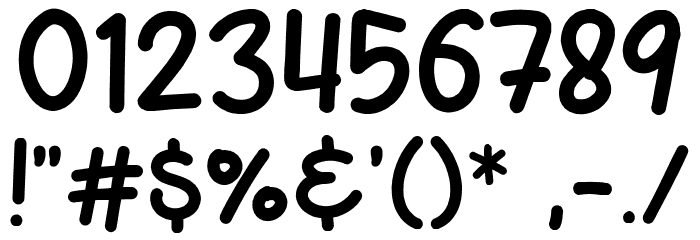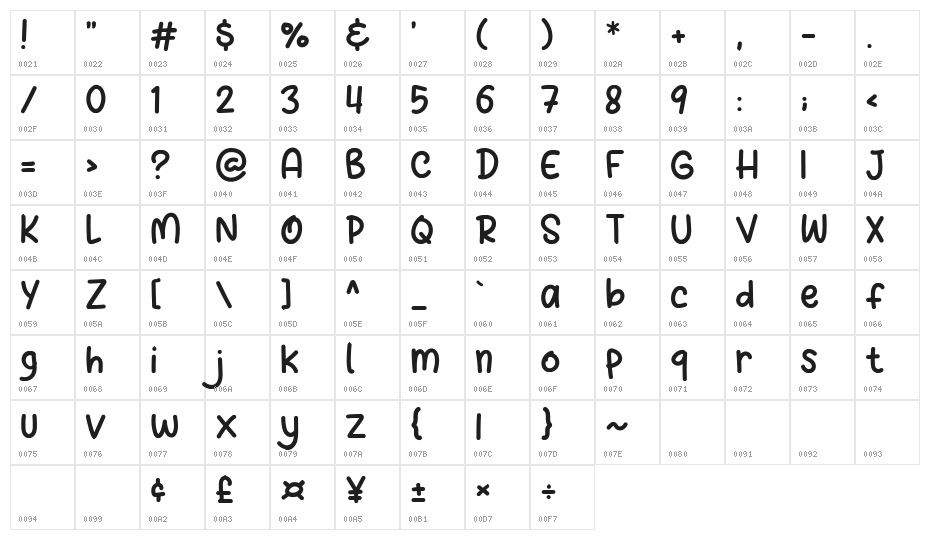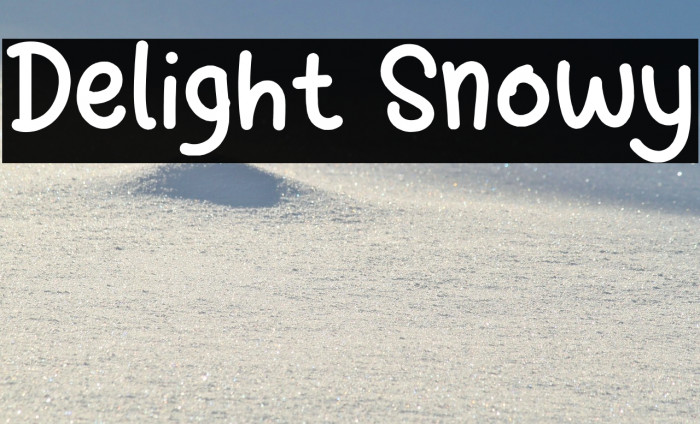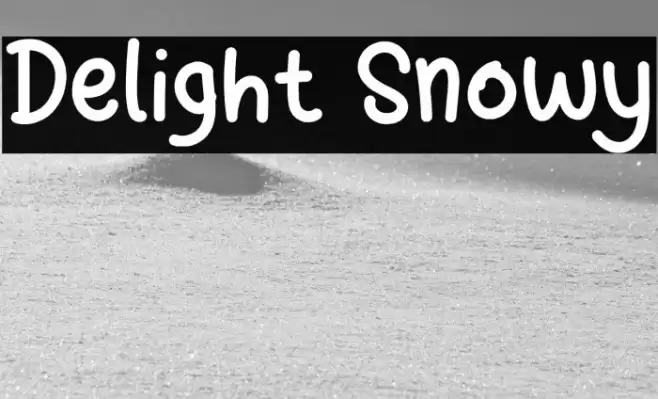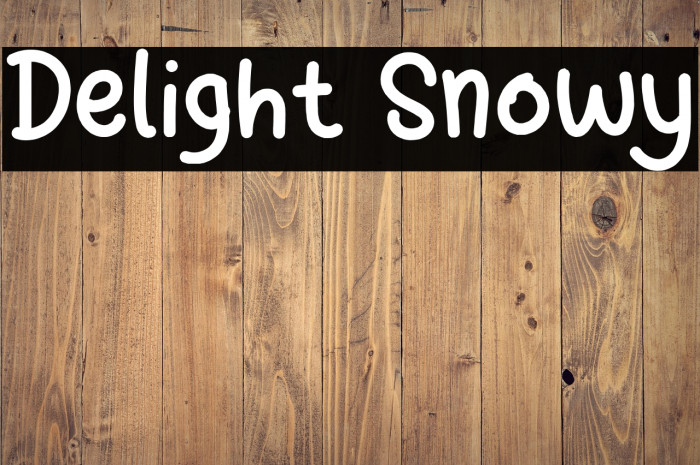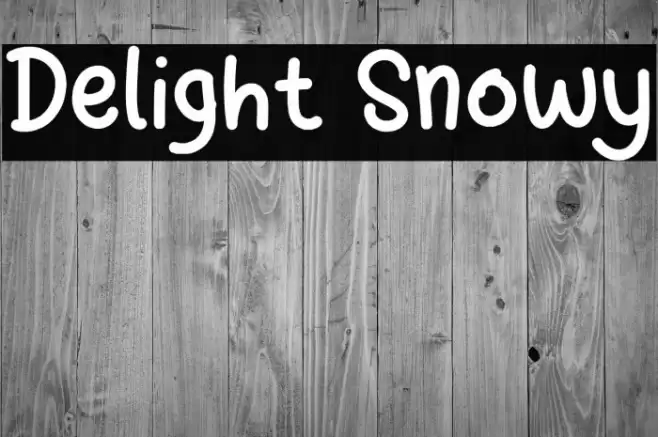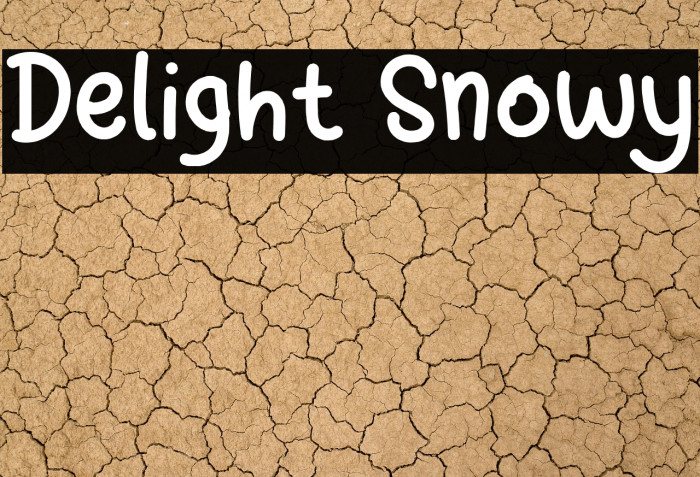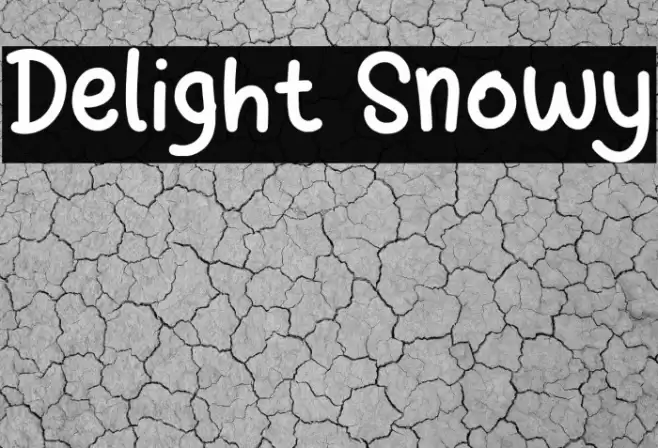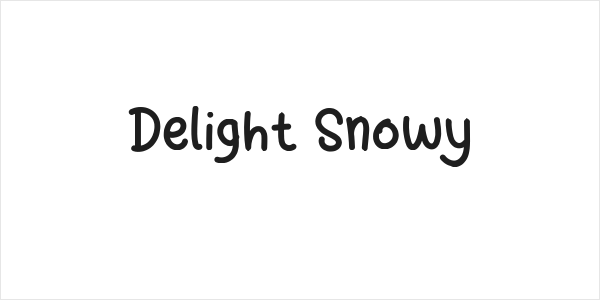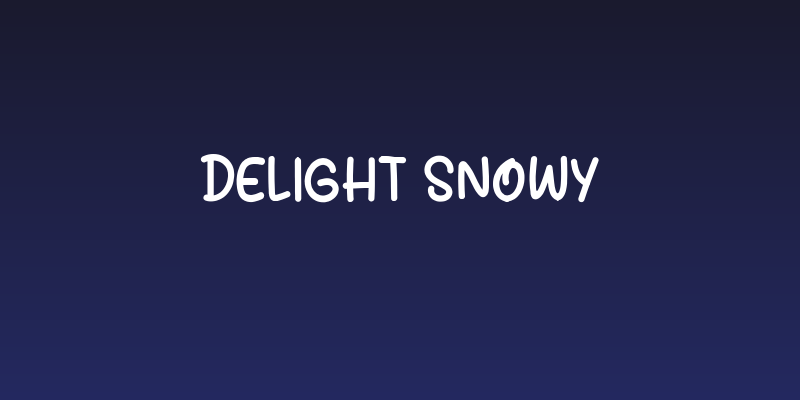
Delight Snowy Font
Delight Snowy Description
This playful and rounded font exudes a friendly and approachable vibe. The characters are bold and slightly irregular, giving them a hand-drawn appearance that adds a touch of whimsy. The strokes are consistent in width, contributing to a uniform look while maintaining a casual feel. The font's rounded edges and smooth curves make it highly legible and suitable for a variety of informal applications. Its unique style is perfect for projects that require a personal touch, such as children's books, greeting cards, or playful branding. The font includes a full set of uppercase and lowercase letters, numbers, and a variety of special characters, ensuring versatility in design.
| Proposed Projects | Ideal for children's books, greeting cards, playful branding, and informal designs. |